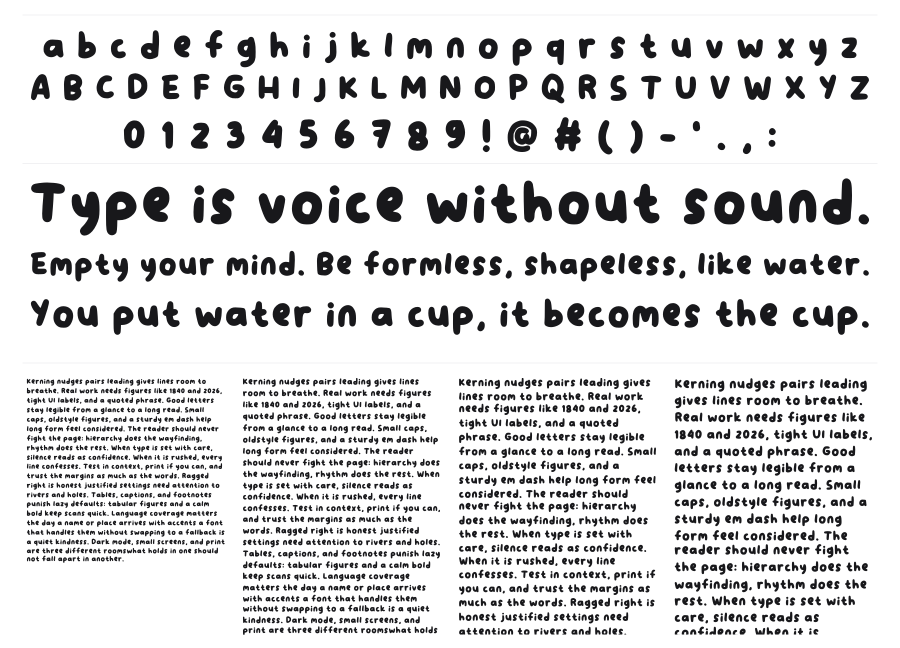
Bobatime
by Oreovocado
Bobatime is a bold, bubbly handwritten font based on the designer's own handwriting. The thick, rounded strokes and soft terminals give it an immediately warm and casual feel, somewhere between a chunky marker and a friendly cartoon title. It carries energy without being shouty.